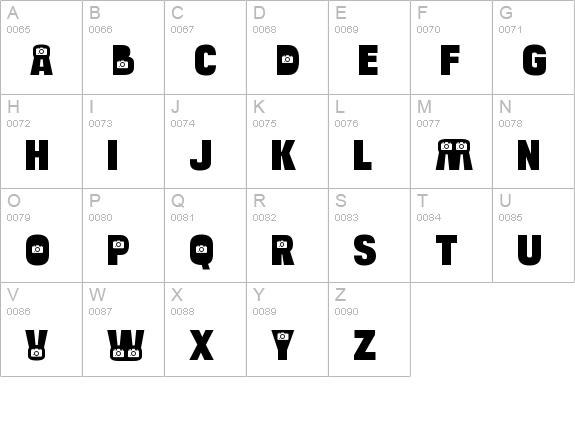
BulltoadCamera-Regular is the standard, neutral variant in the BulltoadCamera typeface family \xE2\x80\x94 well suited to general body text, paragraphs, and standard typographic work.
BulltoadCamera-Regular font is a versatile and modern typeface that exudes a sense of strength and reliability. With its bold and sleek design, this font is perfect for a wide range of projects, from branding to editorial design. The clean lines and distinctive characters of BulltoadCamera-Regular make it easily recognizable and highly legible, ensuring that your message is conveyed with clarity and style. What sets BulltoadCamera-Regular apart is that it is available for free download at FontsMarket.com. This means that you can access this high-quality font without any cost, making it a valuable addition to your font library. Whether you are a designer looking for a new go-to font or a hobbyist exploring typography, BulltoadCamera-Regular offers endless possibilities for your creative projects. Download it today and elevate your designs with this exceptional typeface.